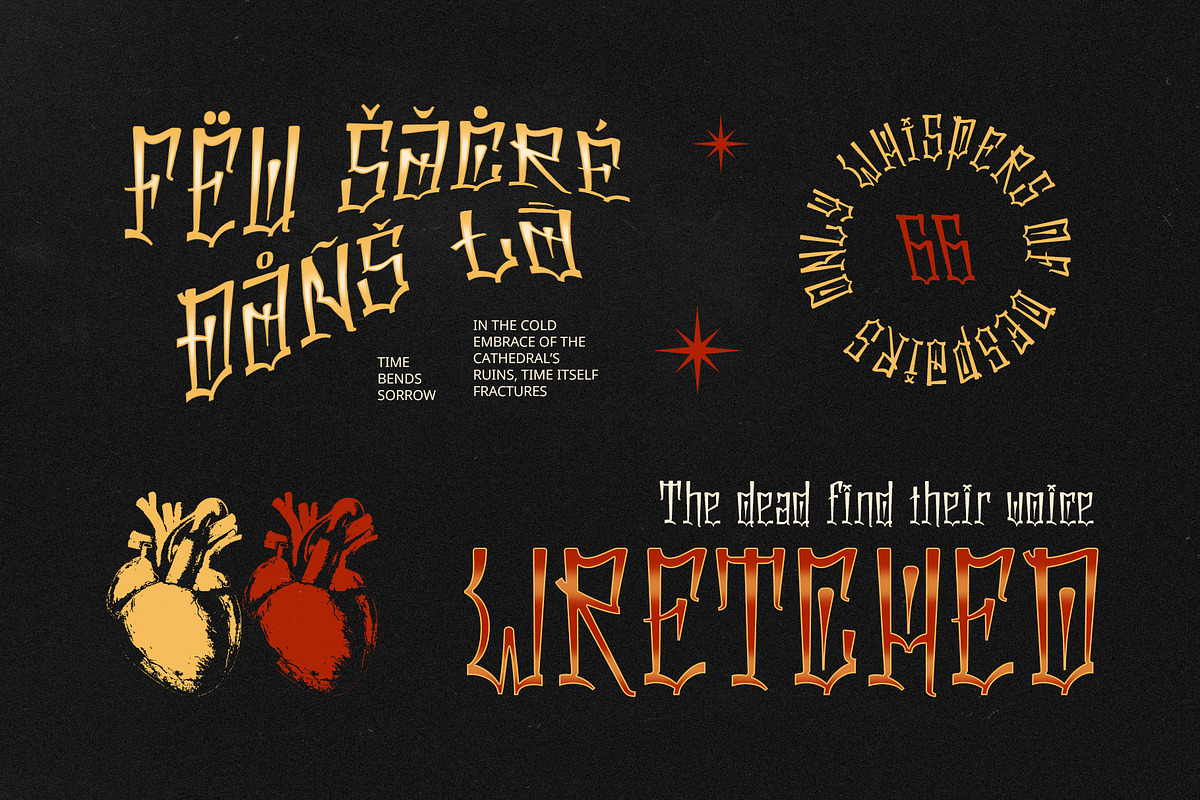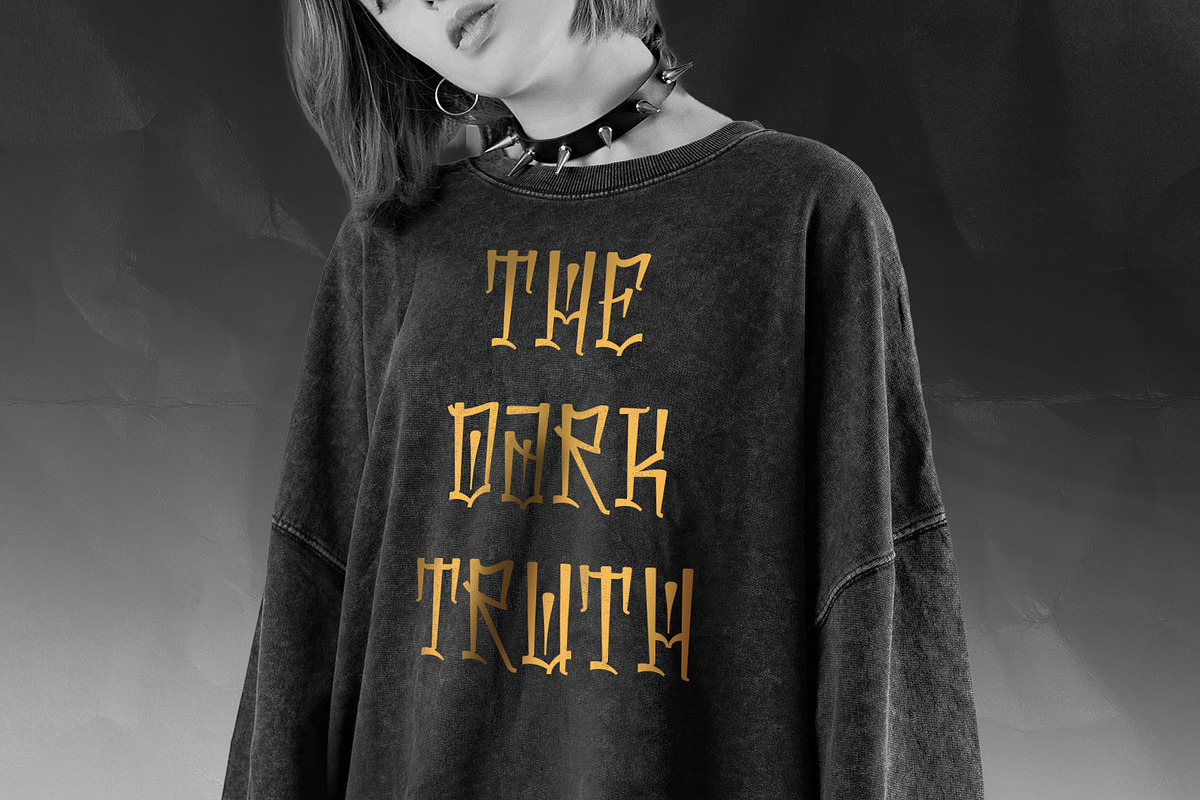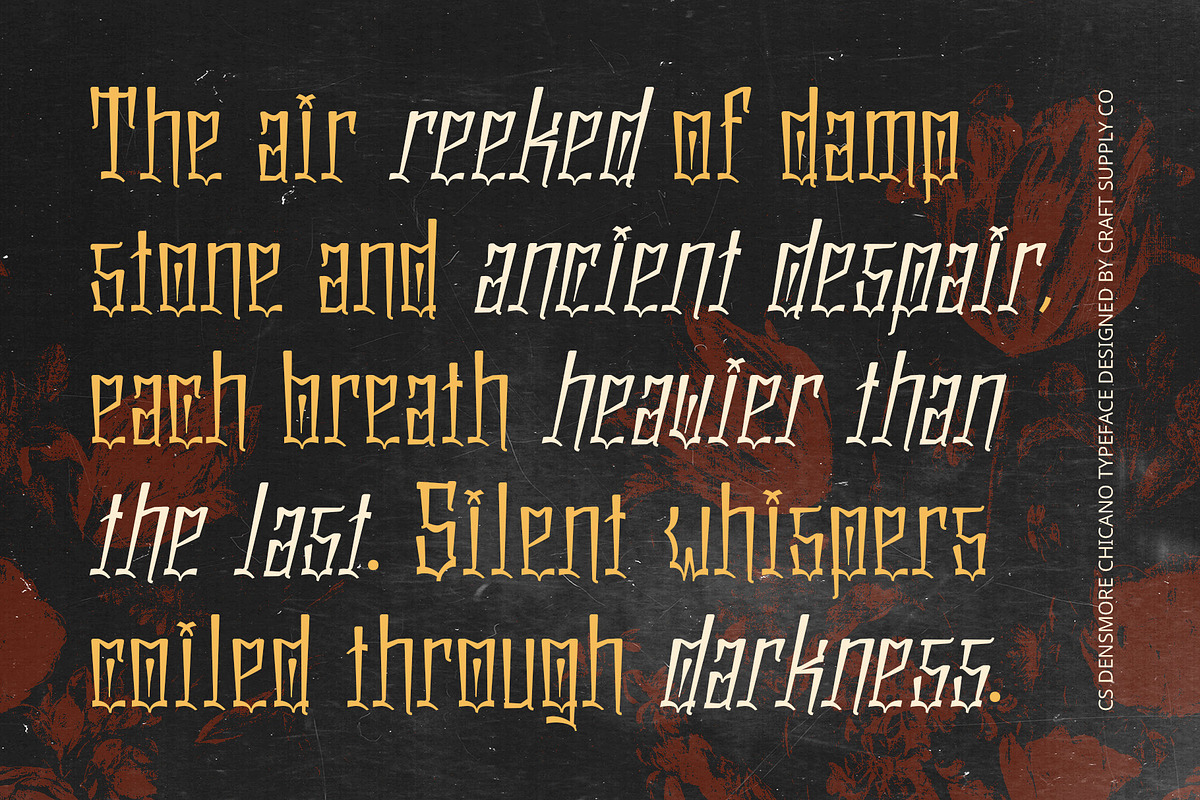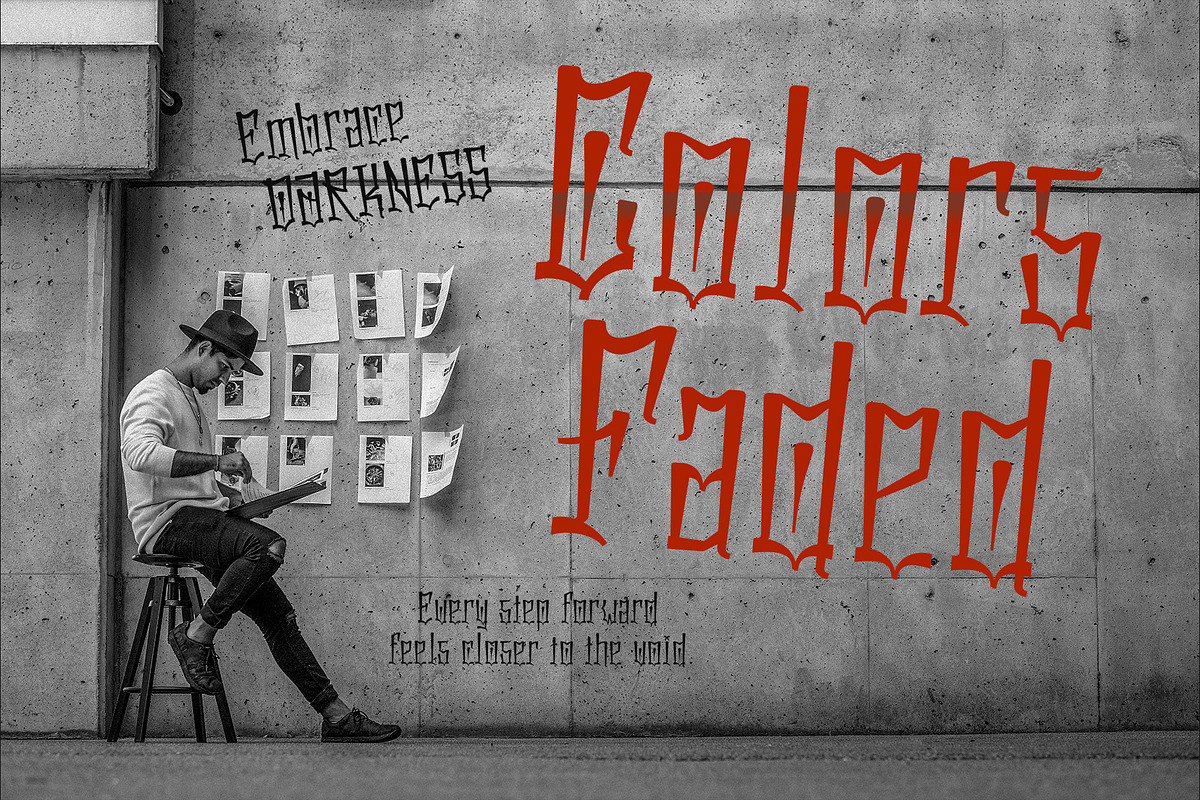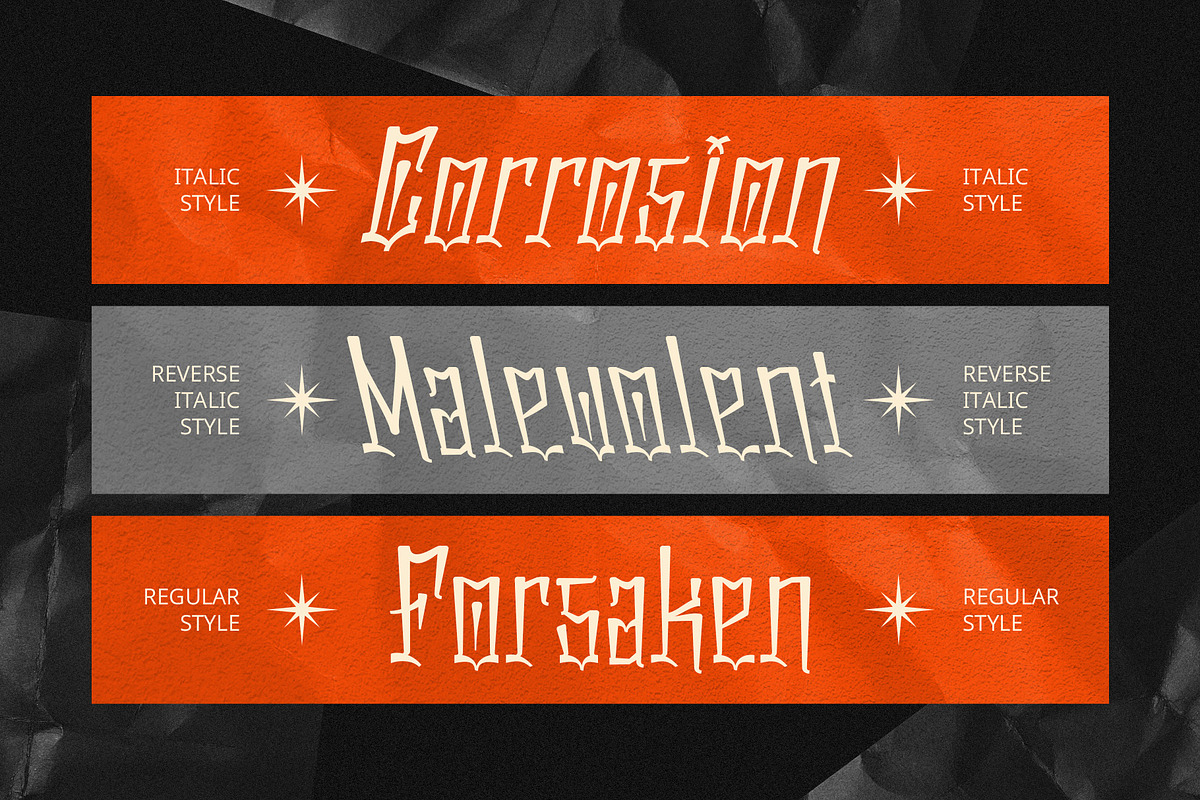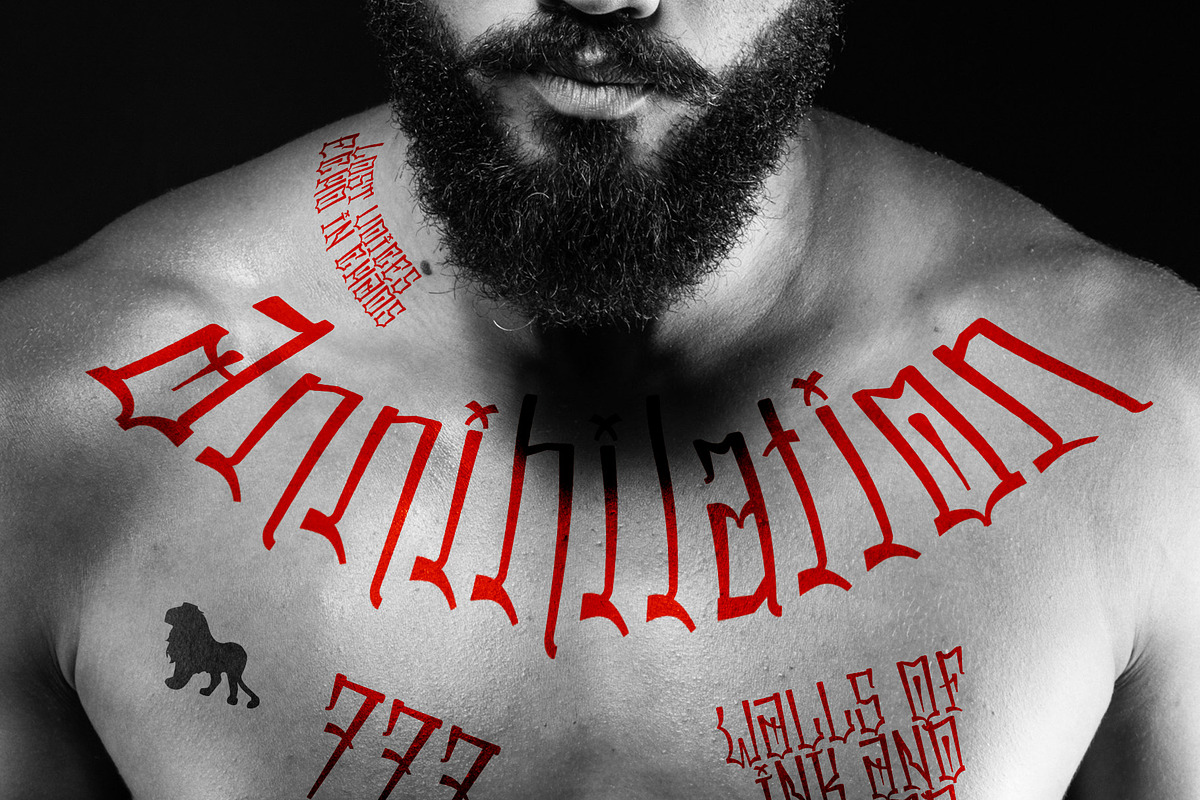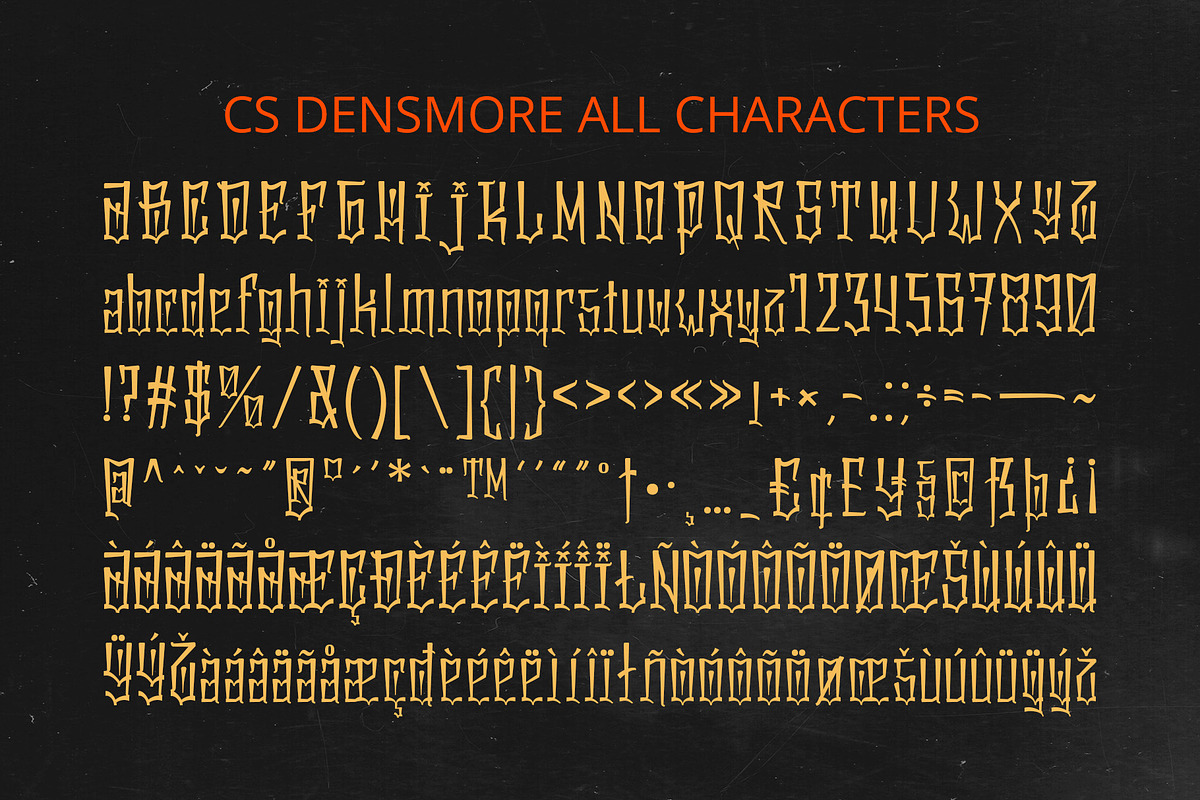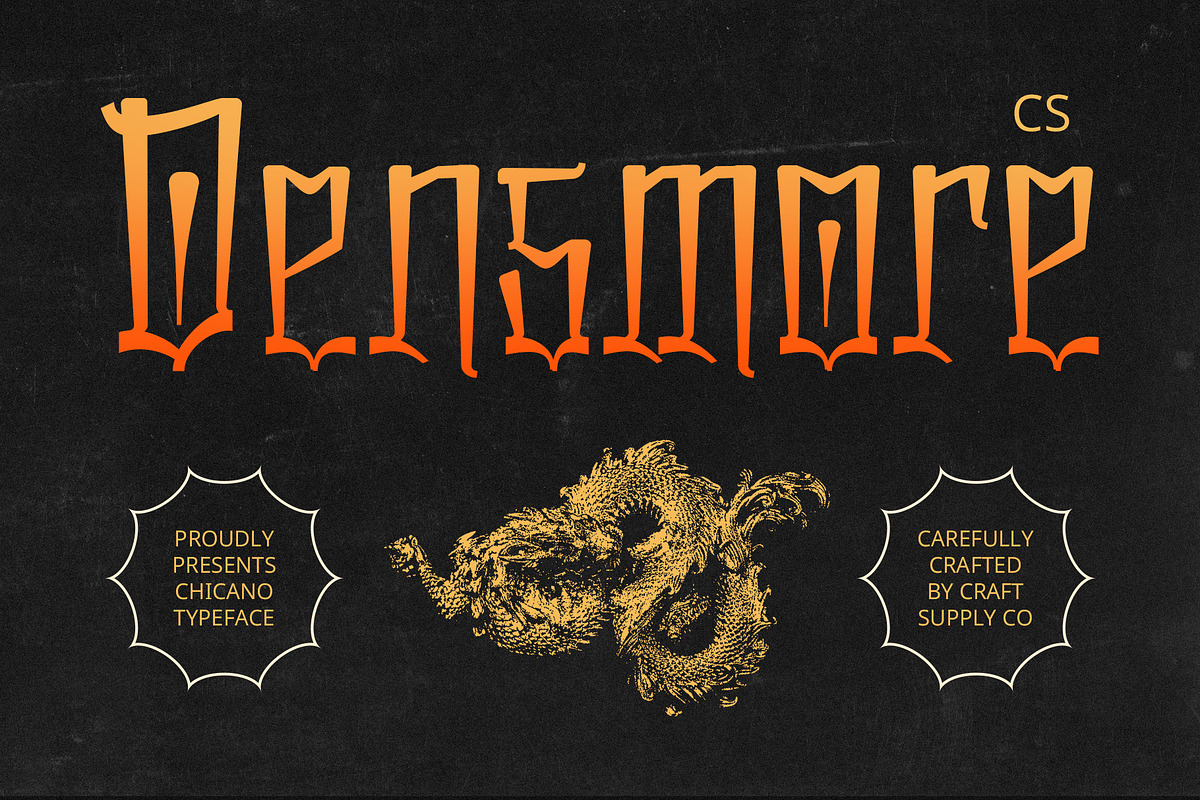
CS Densmore – Chicano Graffiti Font
CS Densmore – Chicano Graffiti Font: A Tribute to Cultural Expression
Bold Chicano Graffiti Display Font CS Densmore – Chicano Graffiti Display Font is a bold and expressive typeface inspired by the vibrant street art and cultural identity of Chicano communities. With its intricate letterforms, fluid curves, and decorative flourishes, this font embodies the essence of pride, rebellion, and artistic heritage.
Intricate Letterforms with Fluid Curves The hallmark of CS Densmore lies in its meticulously crafted letterforms. The fluid curves and detailed embellishments create a striking, dynamic appearance, making it an ideal choice for designs that demand a strong, artistic statement. Whether you’re creating murals, tattoos, or branding materials, the font’s expressive design ensures your project resonates with authenticity and creativity.
Decorative Flourishes for Artistic Depth Adding to its visual appeal, CS Densmore incorporates ornate flourishes that reflect the intricate artistry of Chicano street culture. These decorative elements elevate the font, imbuing it with a sense of elegance and cultural depth. Each character is a piece of art, perfect for capturing the spirit of urban expression and individuality.
Versatile for Tattoos, Urban Branding, and More CS Densmore is designed to shine across various applications, from tattoo designs and logos to posters and artistic projects. Its bold, expressive style makes it particularly suited for urban branding and creative works that celebrate identity and heritage.
- CS Densmore Regular
- CS Densmore Italic
- CS Densmore Reverse Italic